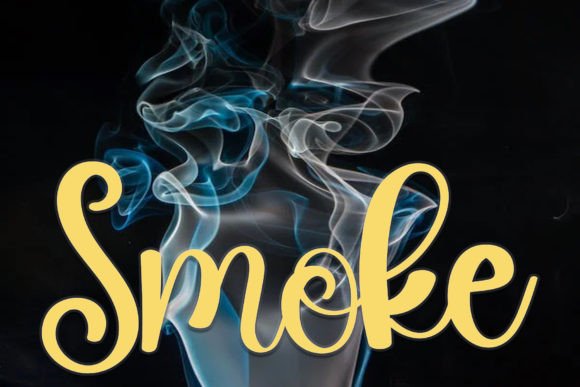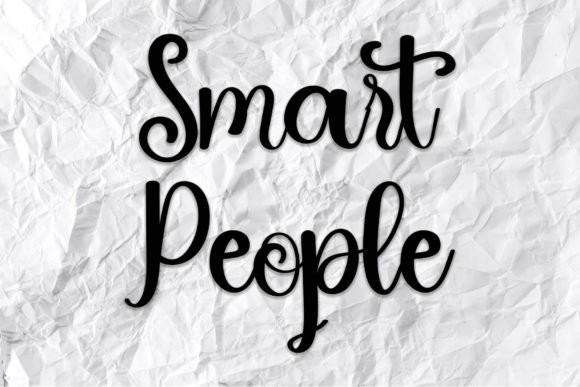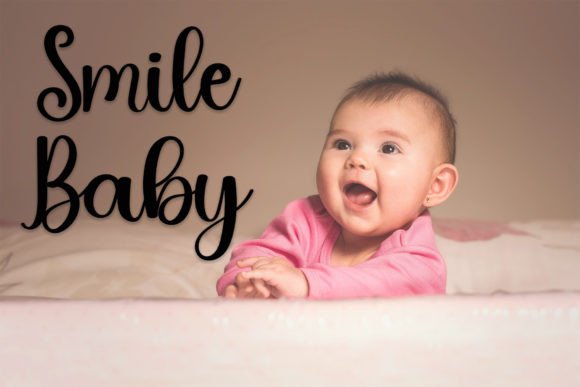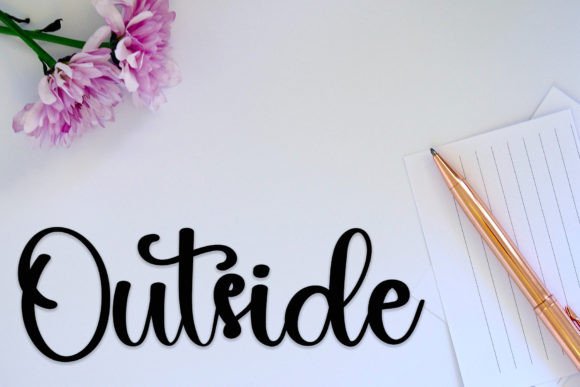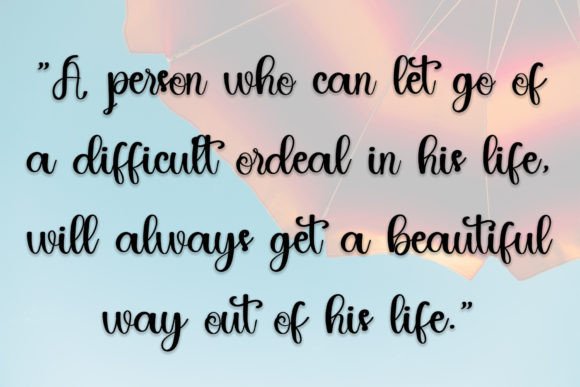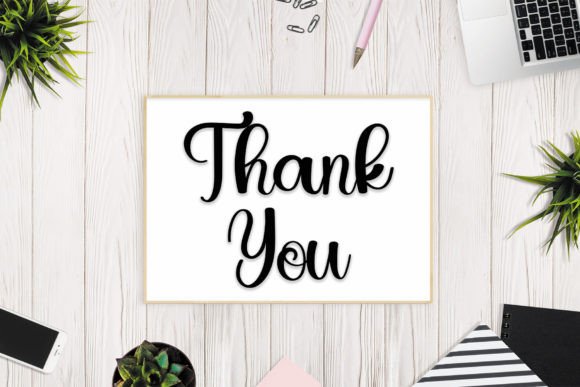
The Magic of Funky Font: Elevate Your Holiday Designs
Ah, the holiday season is upon us, and as designers, crafters, and creative hobbyists, we’re on the lookout for that perfect font to make our projects shine. I still remember the year I was tasked with creating a festive greeting card for a client, only to find myself stuck in a font rut. The usual suspects just weren’t cutting it – they were either too bland or too over-the-top. That’s when I stumbled upon Funky Font, and let me tell you, it was love at first sight! ✨
An Honest Review of Funky Font
So, what makes Funky Font so special? Let’s dive into the good stuff and, of course, a few quirks I’ve discovered along the way.
- 🎉 Festive and Merry: Funky Font embodies the spirit of the holiday season with its decorative elements and whimsical flair.
- ✅ Easy to Use: Being PUA encoded means you can access all the amazing glyphs and ligatures with ease – no fuss, no muss!
- ✨ Perfect for Holiday Projects: From greeting cards to gift tags, this font adds a cheerful and nostalgic ambiance to your words.
- 🔍 Highly Versatile: Whether you’re working on digital or print projects, Funky Font adapts beautifully to various design contexts.
A Few Quirks
While Funky Font has stolen my heart, there are a couple of things to keep in mind:
- 🤔 Glyph Overload: With so many glyphs and ligatures at your disposal, it can be a tad overwhelming at first. Take some time to explore and get familiar with the font’s capabilities.
- ⚠️ Legibility at Small Sizes: Funky Font shines at larger sizes, but keep in mind that legibility might suffer when used at very small sizes. Test it out and adjust accordingly.
The Story Behind Funky Font
Legend has it that the designer behind Funky Font was on a mission to capture the essence of holiday magic. Inspired by vintage greeting cards, snowflakes, and festive lights, they poured their heart into creating a font that would bring joy and wonder to designs. And so, Funky Font was born – a merry, festive typeface designed to spread cheer and make your holiday projects sparkle.
Q: What makes Funky Font special for holiday designs?
A: Funky Font’s decorative elements and whimsical flair perfectly capture the spirit of the holiday season, adding a touch of enchantment to your designs.
Q: Is Funky Font easy to use for beginners?
A: Absolutely! With its PUA encoding, accessing glyphs and ligatures is straightforward, making it accessible for designers of all levels.